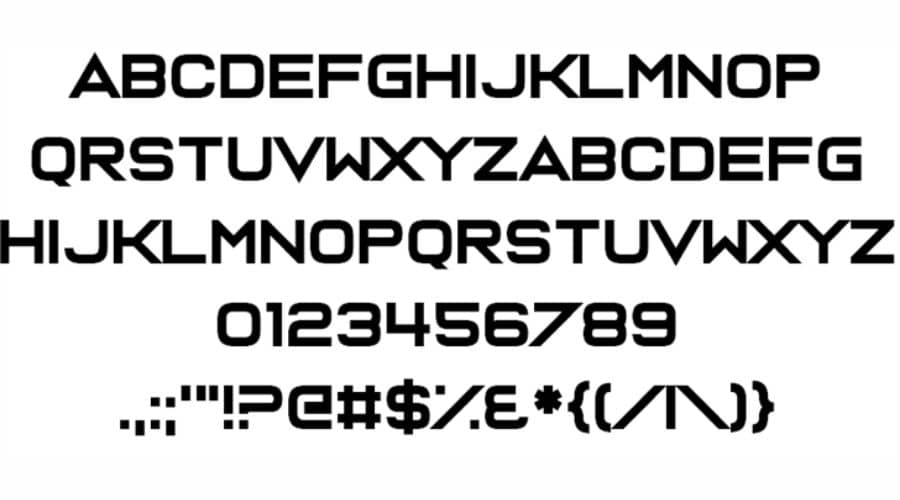
Casanova Scotia is a high-end sans serif typeface. Casanova Scotia Font Free Download is designed and published by Chequered Ink. The Font is free to download and use for personal purposes. On July 6, 2018, the Font was made public. All uppercase and lowercase letters and a few special characters are included in the free version. Casanova Scotia is the font family for this Font. Regular is the Font’s sub-family. The typeface belongs to the stylish and sans serif groups.
Casanova Scotia Font is great for logos, branding, invitations, stationery, wedding designs, logos, business cards, covers, t-shirts, social media posts, and more. It will also be utilized to generate a stunning image and text in a variety of colors and styles. Casanova Scotia is also ideal for branding projects, homeware designs, product packaging, and as a classy text overlay on any backdrop image.
| Name | Casanova Scotia Font |
| Style | Sans Serif |
| Designer | Chequered Ink |